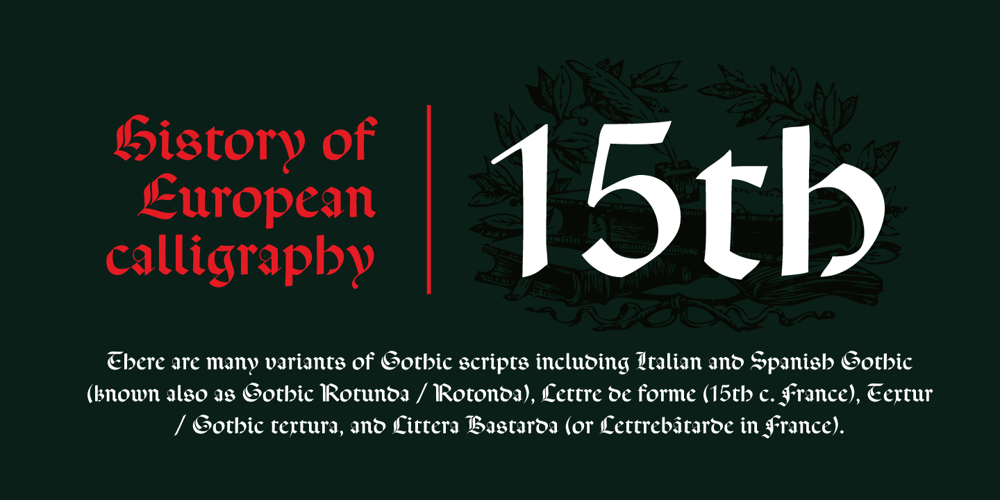
Cal Rotunda
Cal Rotunda font
Cal Rotunda Font Family was designed by Lazar Dimitrijević and published by Posterizer KG. Cal Rotunda contains 1 styles and family package options. Calligrapher Rotunda Font is one of the calligraphic group of fonts called “21 alphabets for Calligraphers“. All graphemes are taken from calligraphic pages written in traditional Rotunda calligraphic style. This font is ideal for calligraphic sketches or for imitation of ancient manuscripts. The font contains all the Latin glyphs.